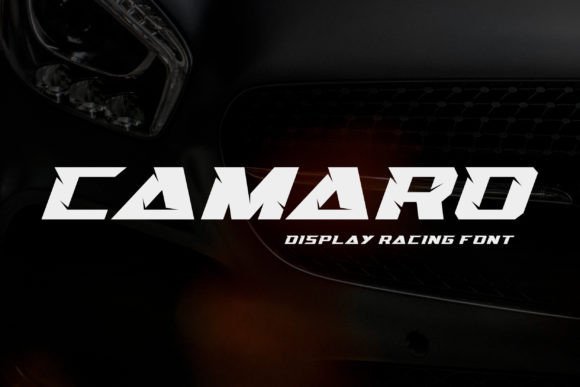
The Speed of Design: Introducing the Camaro Font
Imagine you’re speeding down a winding track, the rush of adrenaline coursing through your veins as you push your car to its limits. That’s the feeling we aimed to capture with the Camaro Font – a dynamic display font that embodies the thrill of racing.
The Camaro Font is designed to evoke the sleek lines and aerodynamic curves of high-performance vehicles. Its bold strokes and sharp edges are perfect for conveying a sense of speed and energy, making it an ideal choice for logos, event posters, and branding for sports and racing teams. With the Camaro Font, designers can add a touch of high-octane excitement to their projects, elevating their designs to the next level.
Whether you’re working on a racing-themed project or simply looking to add some speed to your design, the Camaro Font is a valuable addition to any designer’s toolkit.
Camaro Font Key Features
- Font Size: The font family consists of multiple weights, ranging from Extra Light to Extra Bold, allowing for a wide range of design applications.
- Unique Characteristics: Camaro Font features a sleek, modern design with geometric shapes, making it ideal for automotive, technology, and sports-related branding.
- Style Variations: The font family includes multiple styles, including regular, italic, bold, and bold italic, offering flexibility for designers to create unique typographic combinations.
Camaro Font Review
I recently had the chance to work with the Camaro font, and I wanted to share my honest thoughts on it.
- ✨ The font’s energetic and playful feel is perfect for designs that need a touch of excitement.
- ✨ The font’s versatility allows it to be used for a wide range of projects, from logos to posters.
- ⚠️ The font’s bold weight can sometimes feel a bit too aggressive, overpowering other design elements.
- ⚠️ The font’s lack of italic and bold-italic styles can be a limitation for certain projects.
Overall, the Camaro font is a great choice for designers who need a fun and energetic font for their projects. However, it may not be the best fit for more conservative or formal designs. With a bit more attention to weight and style options, I think the Camaro font could be even more versatile and effective.
Tips for Getting the Most Out of Camaro Font
Here are some tips to help you get the most out of the Camaro Font:
- Use the Camaro Font for bold, eye-catching headlines.
- Pair the Camaro Font with other fonts to create a unique and stylish typography.
- Experiment with different font sizes and colors to add emphasis and visual interest.
Common Use Cases for Camaro Font
The Camaro Font is ideal for:
- Choose a background color that complements the font’s color. In this case, a dark brown or wood tone background will work well.
- Use the Camaro Font for the menu items and descriptions. This will add a modern touch to the classic coffee shop feel.
- Combine the font with rustic design elements such as wooden textures, vintage coffee cups, or a distressed look to create a cohesive design.
- Choose a bold, eye-catching color for the font that will stand out on the car’s surface.
- Use the Camaro Font for the car’s name, model number, or a catchy slogan. This will add a personal touch to the car’s design.